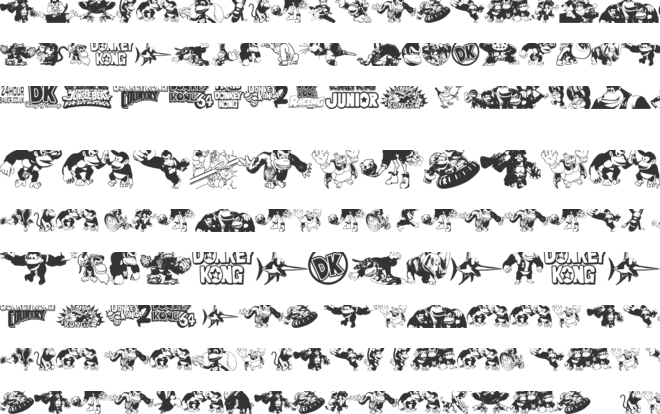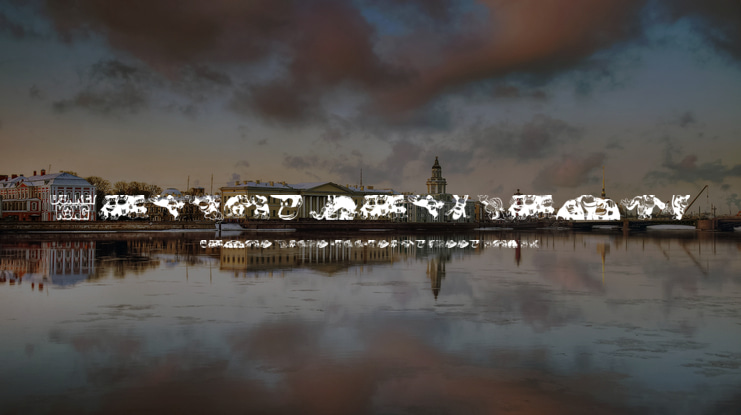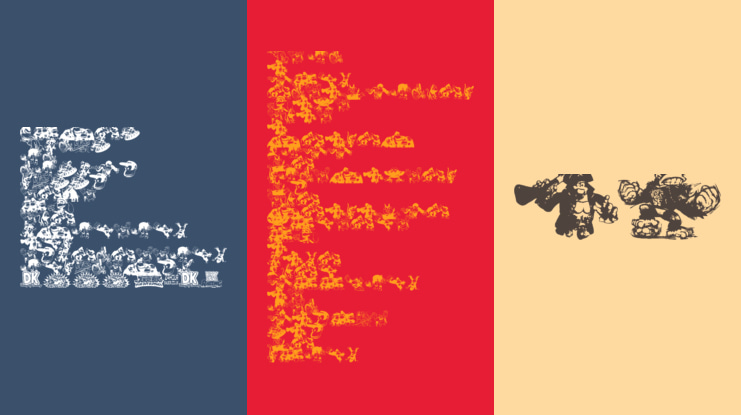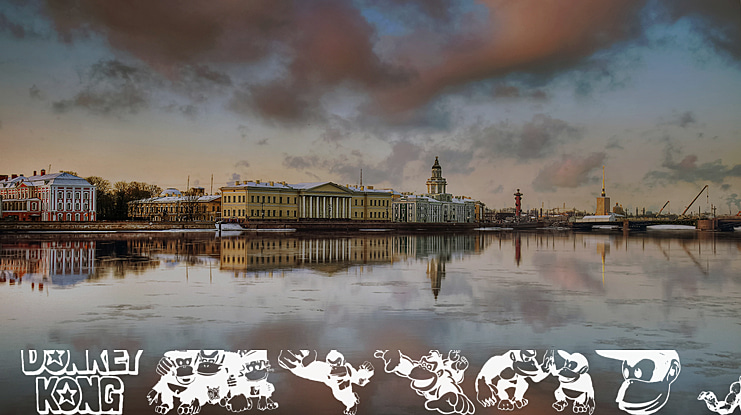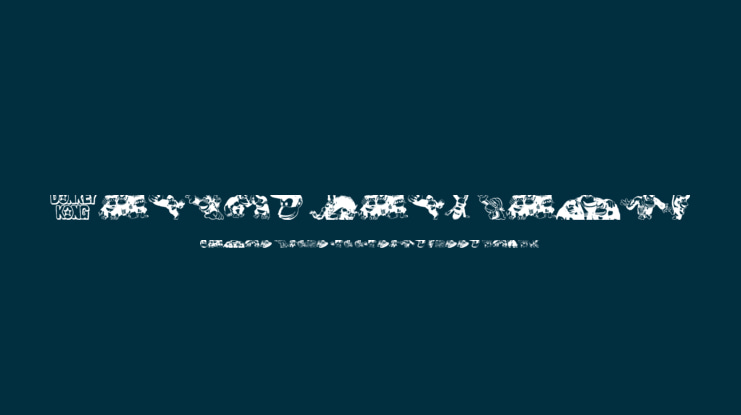
Donkey Kong World Font
Donkey Kong font: Upper and lower cases, numbers and other keys feature pictures and logos from the Donkey Kong video game series.